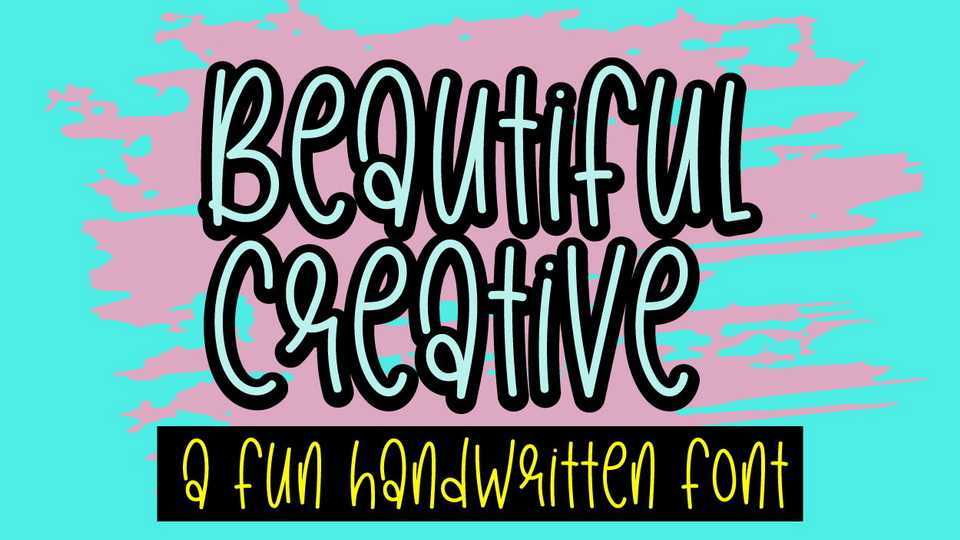
Download Beautiful Creative font, a fun, quirky and asymmetrical handwritten typeface. Expertly designed to make your creation look out of this world, this font will look gorgeous on a variety of ideas.